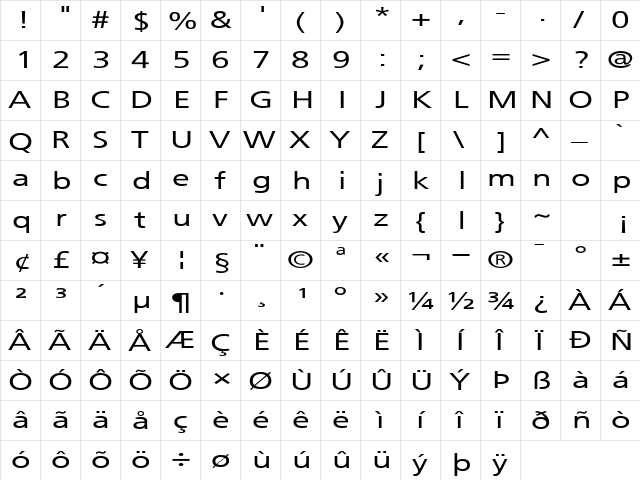
WeissachExtended Regular
Design Context for WeissachExtended Typeface
WeissachExtended offers clean, dependable letterforms without strong stylistic allegiance, making it a practical choice for designers who need flexibility.